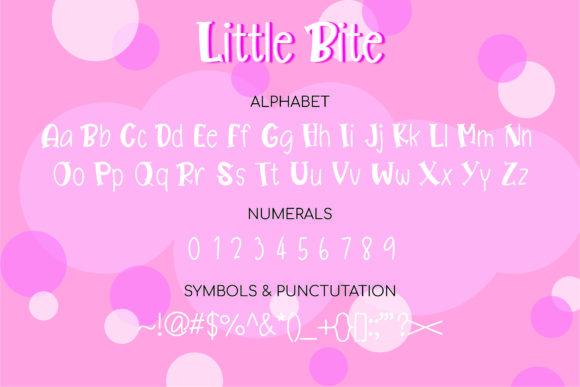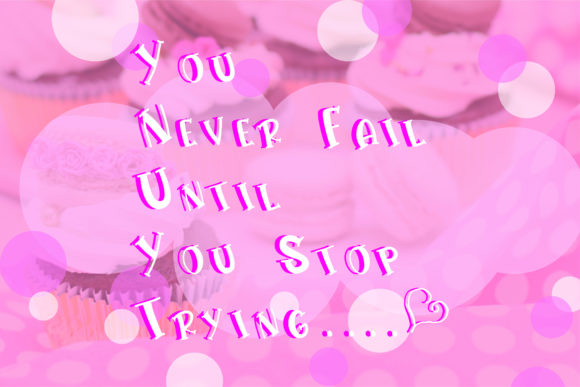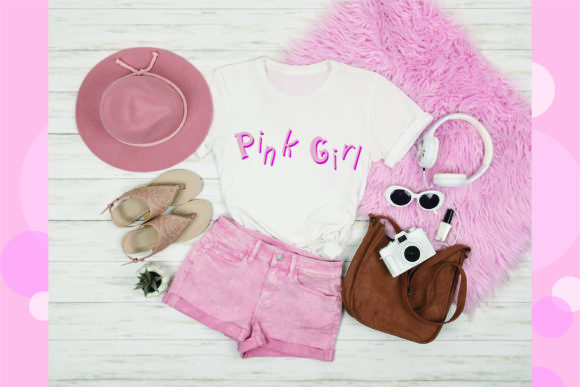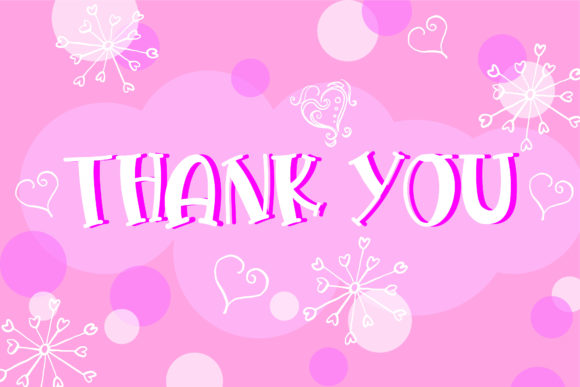
Introduction to Little Bite Font
Remember that moment when you’re working on a creative project, and you just can’t seem to find the right font to bring it all together? It’s like searching for the perfect missing piece in a puzzle. But what if I told you that the perfect fit is just around the corner? Welcome to the world of Little Bite Font, a charming and versatile serif font that’s about to become your new go-to design resource.
With its natural, unique style, Little Bite Font is the perfect solution for designers looking to add a touch of personality to their work. Whether you’re working on a branding project, a blog post, or even a simple social media graphic, this font is sure to elevate your design to the next level. And the best part? It’s available for free download, making it an accessible and valuable resource for designers of all levels.
From transparent backgrounds to high-quality typography, Little Bite Font is the perfect addition to any design project. So why settle for a generic font when you can have a font that truly makes a statement? Explore the endless variations of Little Bite Font and discover the possibilities for yourself.
Key Features of Little Bite Font
- Unique, modern font with a transparent background, perfect for adding a touch of elegance to your designs.
Honest Review: Little Bite Font
I recently stumbled upon the Little Bite Font while searching for a high-quality design resource to use in a creative project. I was pleasantly surprised by the quality and versatility of this font.
- ✨ The transparent background allows for easy layering and customization.
- ✨ The font is highly customizable, making it suitable for a wide range of creative projects.
- ⚠️ The font may not be suitable for projects that require a wide range of character sets, as it only includes a limited number of characters.
- ⚠️ Some users may find the font to be a bit too minimalist, which may not be suitable for projects that require a more dramatic effect.
Overall, I was impressed with the Little Bite Font. While it may have some limitations, its high quality and versatility make it a great addition to any designer’s toolkit. I would definitely recommend it to anyone looking for a reliable design resource.
How to Use Little Bite Font
Tips for Getting the Most Out of Little Bite Font
To get the most out of the Little Bite Font, use it on a transparent background to create a subtle and elegant design. You can also pair it with other high-quality fonts to create a unique and creative project.
The Little Bite Font is perfect for use in creative projects such as wedding invitations, business cards, and social media graphics. Its high-quality design and transparent background make it ideal for use in digital designs and print materials.
Is the Little Bite Font suitable for print and digital projects?
Yes, the Little Bite Font is designed to be versatile and can be used for both print and digital projects. The font’s high quality and transparent background make it ideal for use in logos, posters, business cards, and other visual materials. However, please note that the font’s performance may vary depending on the specific design application and device being used.